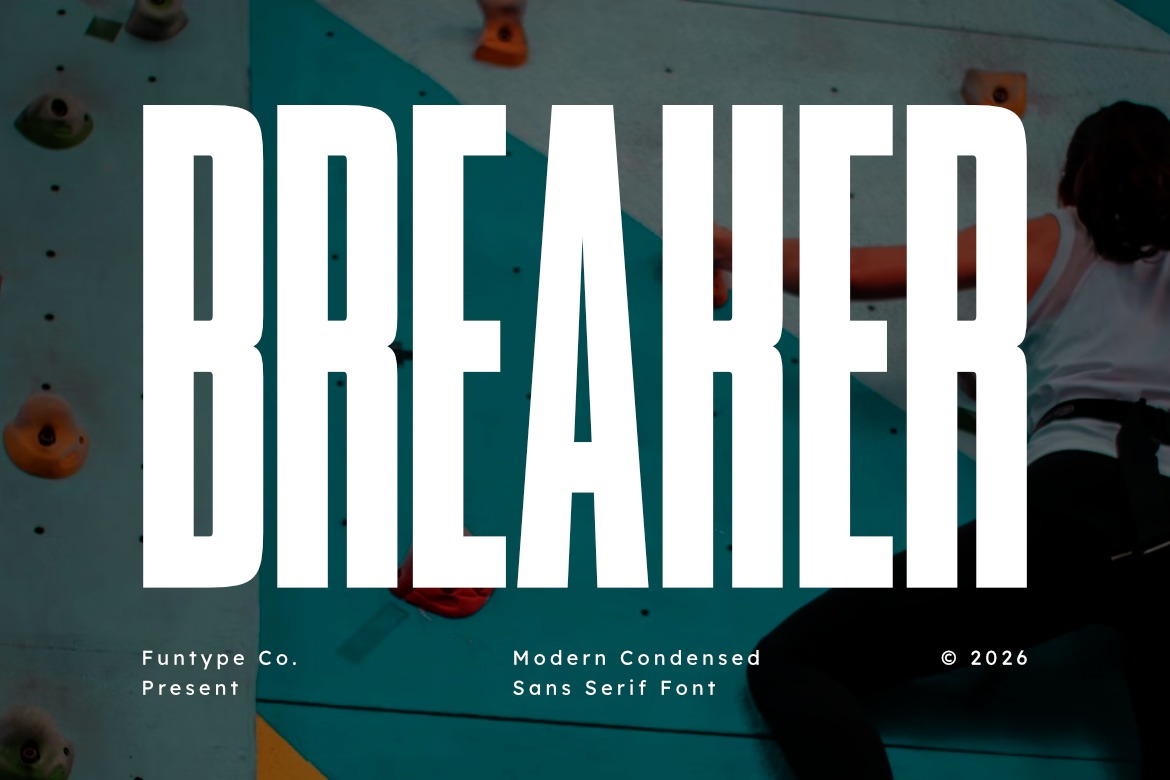
Breaker Font
Breaker Font is a versatile font designed to adapt beautifully across different design styles, offering dependable readability and balance. Breaker is a sophisticated and powerful modern condensed sans serif font, thoughtfully designed to capture the essence of vertical impact and contemporary storytelling. With its tall, ultra-compressed structure and clean geometric lines, Breaker offers a professional aesthetic that brings a touch of commanding presence to any creative project.
This font is the ideal choice for designers looking to add a professional yet high-impact touch to their work. Whether you are crafting a striking cinematic poster, a sleek sports brand identity, or bold editorial layouts, Breaker provides a seamless blend of modern edge and digital authority.
Main Features:
Modern Condensed Design: Optimized for a bold, space-efficient, and professional look.
Clean Vertical Lines: Meticulously crafted for superior visibility and a high-end feel.
Commanding Presence: Perfect for headlines, posters, and large-scale digital displays.
Professional Aesthetic: High-end finish for modern tech, action sports, and industrial branding.